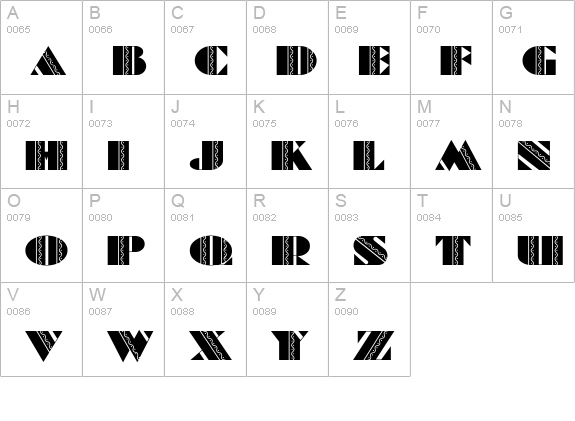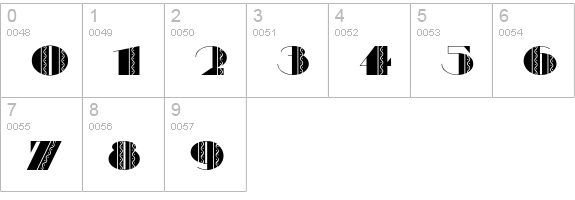
FeteAccompli Font Details
FeteAccompli font is a stunning and elegant typeface that exudes sophistication and charm. Its graceful curves and delicate lines make it a perfect choice for various design projects, from invitations to branding materials. The FeteAccompli font is a versatile option that can effortlessly convey a sense of style and class. What sets FeteAccompli font apart is not just its beauty, but also the fact that it is available for free download at FontsMarket.com. This means that you can easily access this gorgeous font and use it in your projects without any cost. Whether you're a designer looking to add a touch of elegance to your work or an individual wanting to elevate your personal projects, FeteAccompli font is the perfect choice. Download it today and let its timeless beauty enhance your designs.